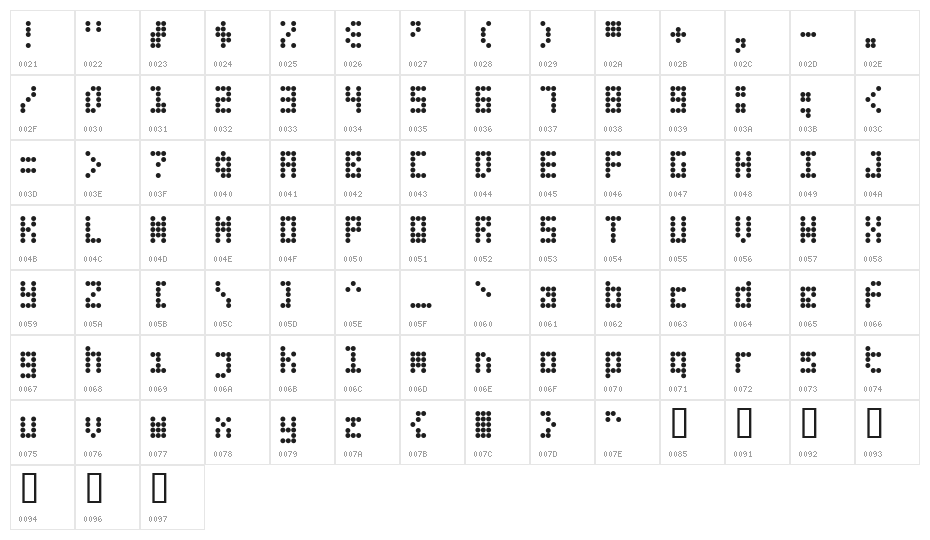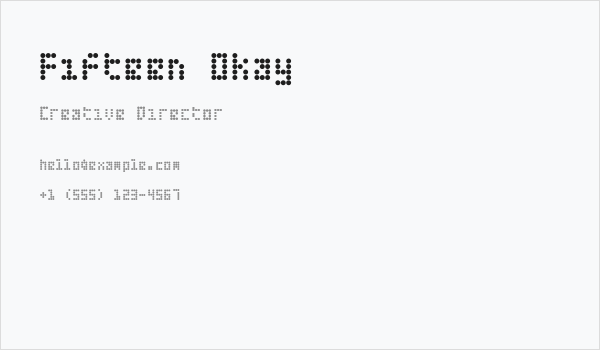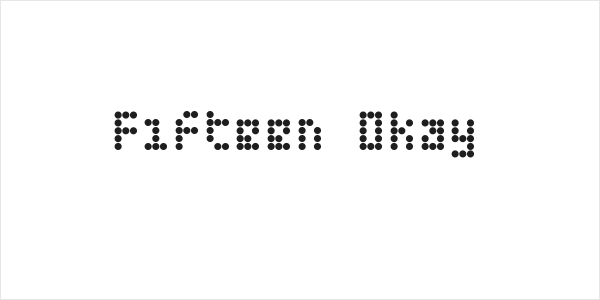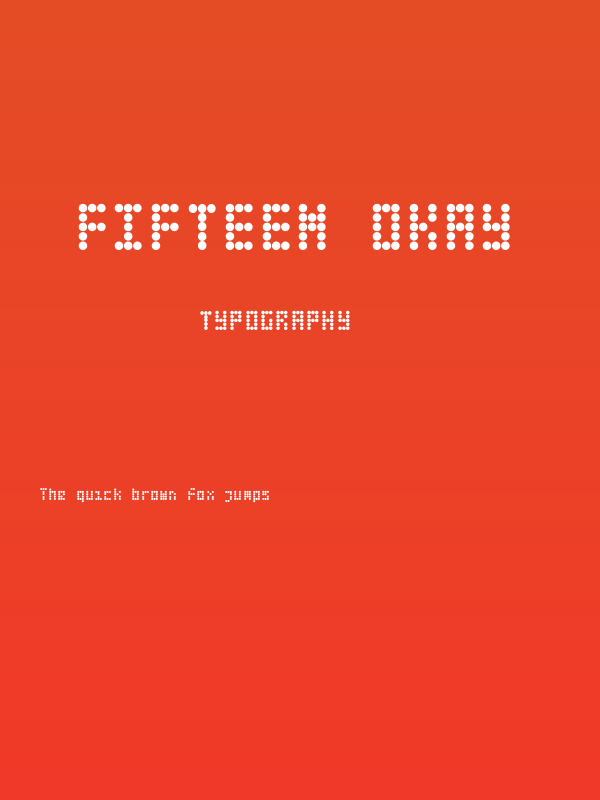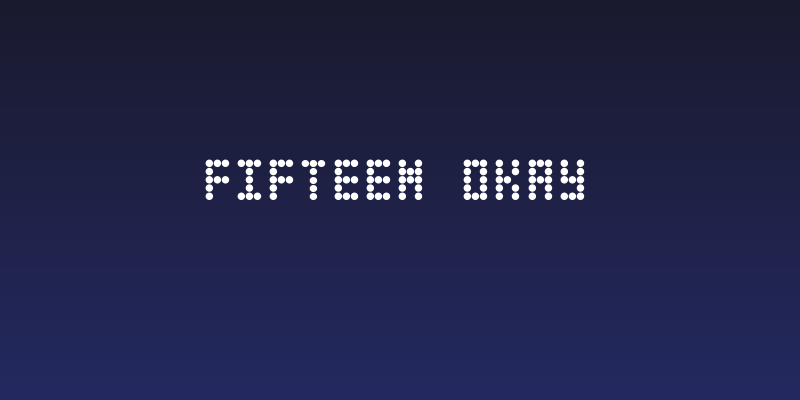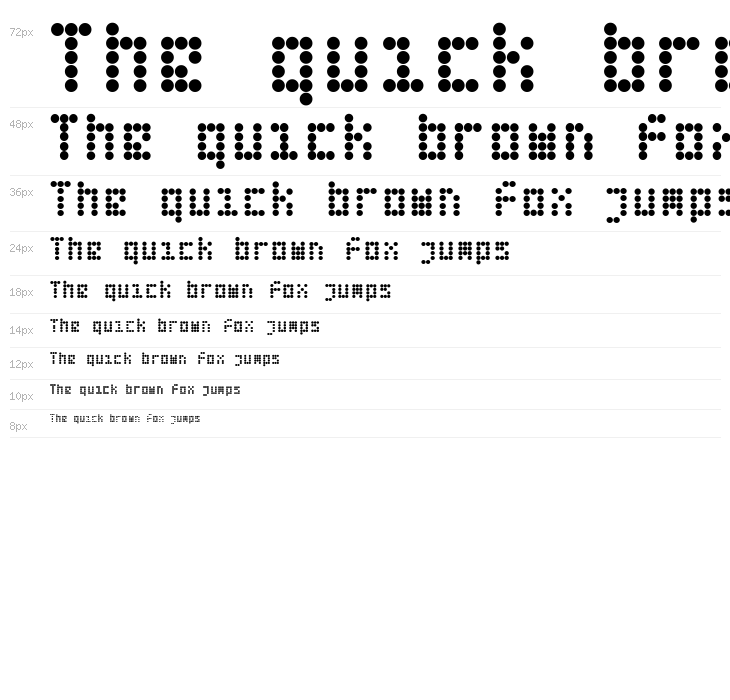
Fifteen Okay Font
Fifteen Okay Description
This font features a unique dotted design, where each character is composed of a series of evenly spaced dots. The style is consistent across uppercase, lowercase, numbers, and special characters, creating a cohesive and visually striking appearance. The dots are uniform in size, giving the font a pixelated, digital feel. This design is both playful and modern, making it suitable for creative and tech-oriented projects. The spacing between the dots is consistent, ensuring readability while maintaining its distinctive style.
| Use Case | Logos, Posters, Digital Art |
| Proposed Projects | Ideal for digital art, tech branding, modern posters, and creative advertisements. |